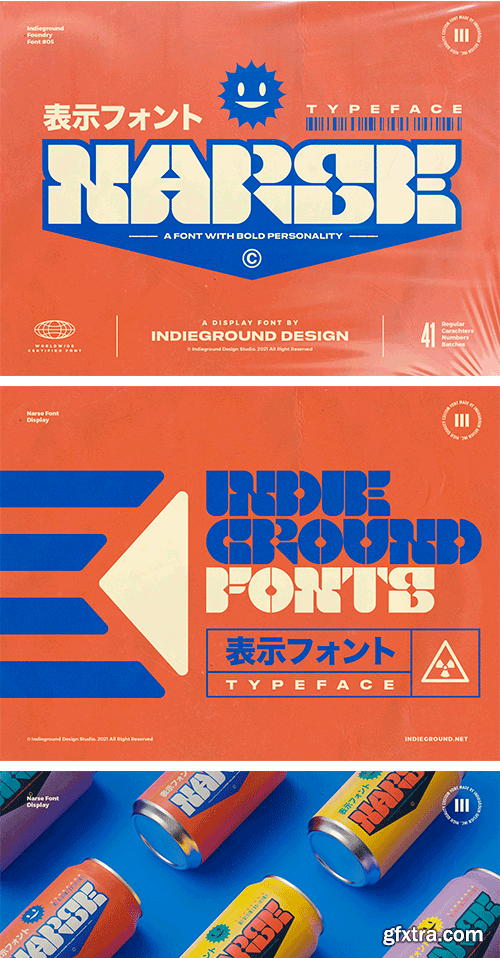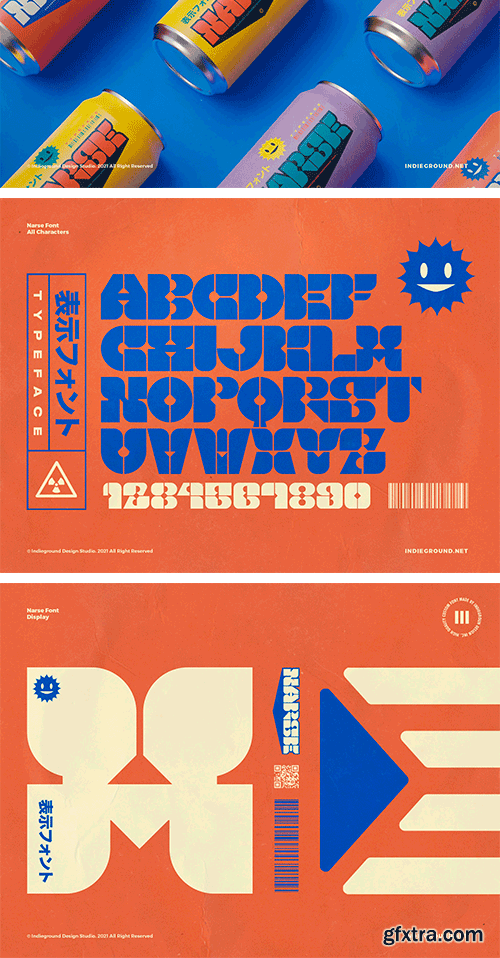
Narse Font
Narse Font by Indieground This unique display font based on a square module, made by the Indieground Team, gives a classic mood with modern styling and boldness to the typography of your artworks. It's inspired by a mix of 70’s Jazz cover-art and contemporary lettering.